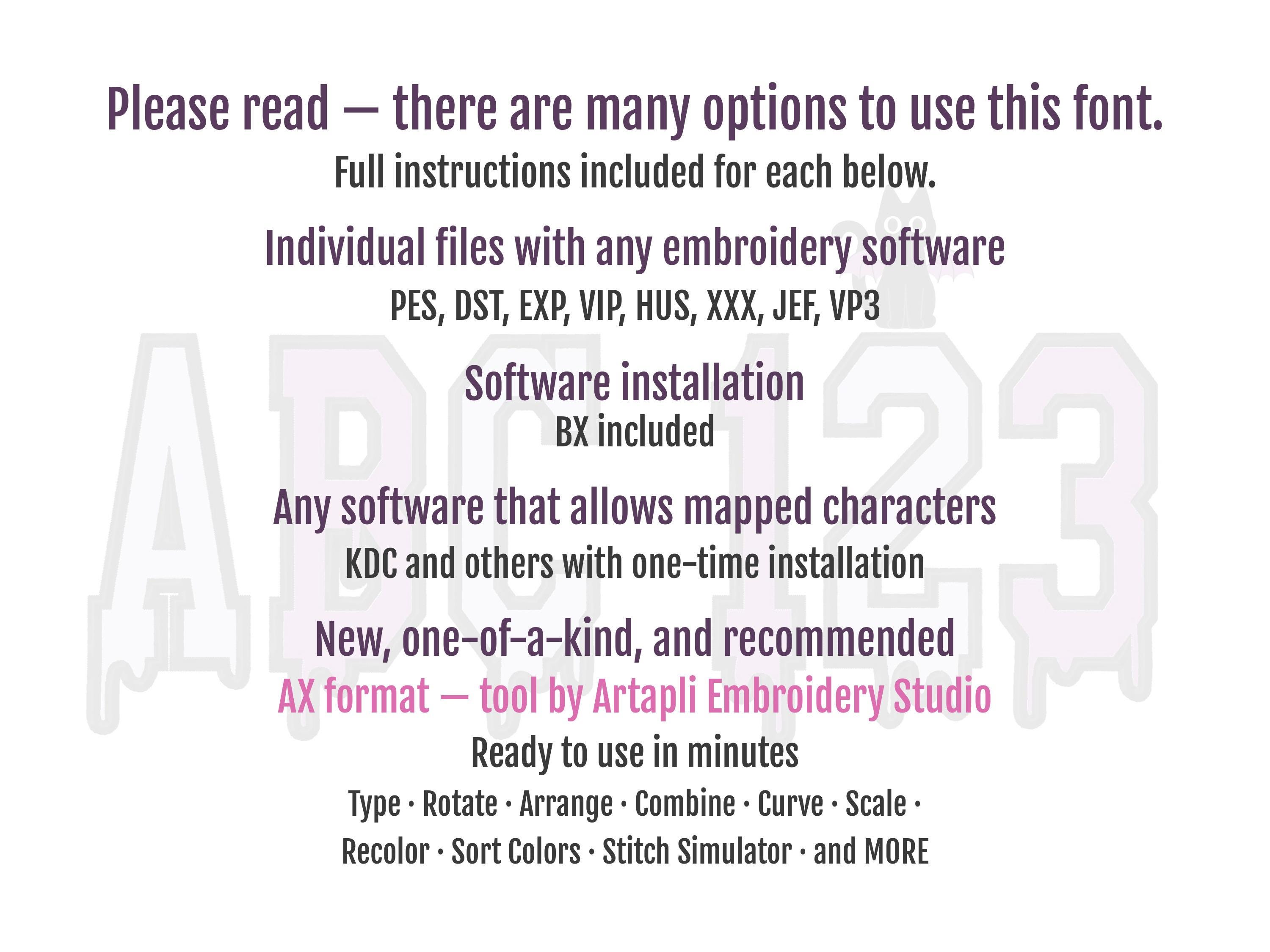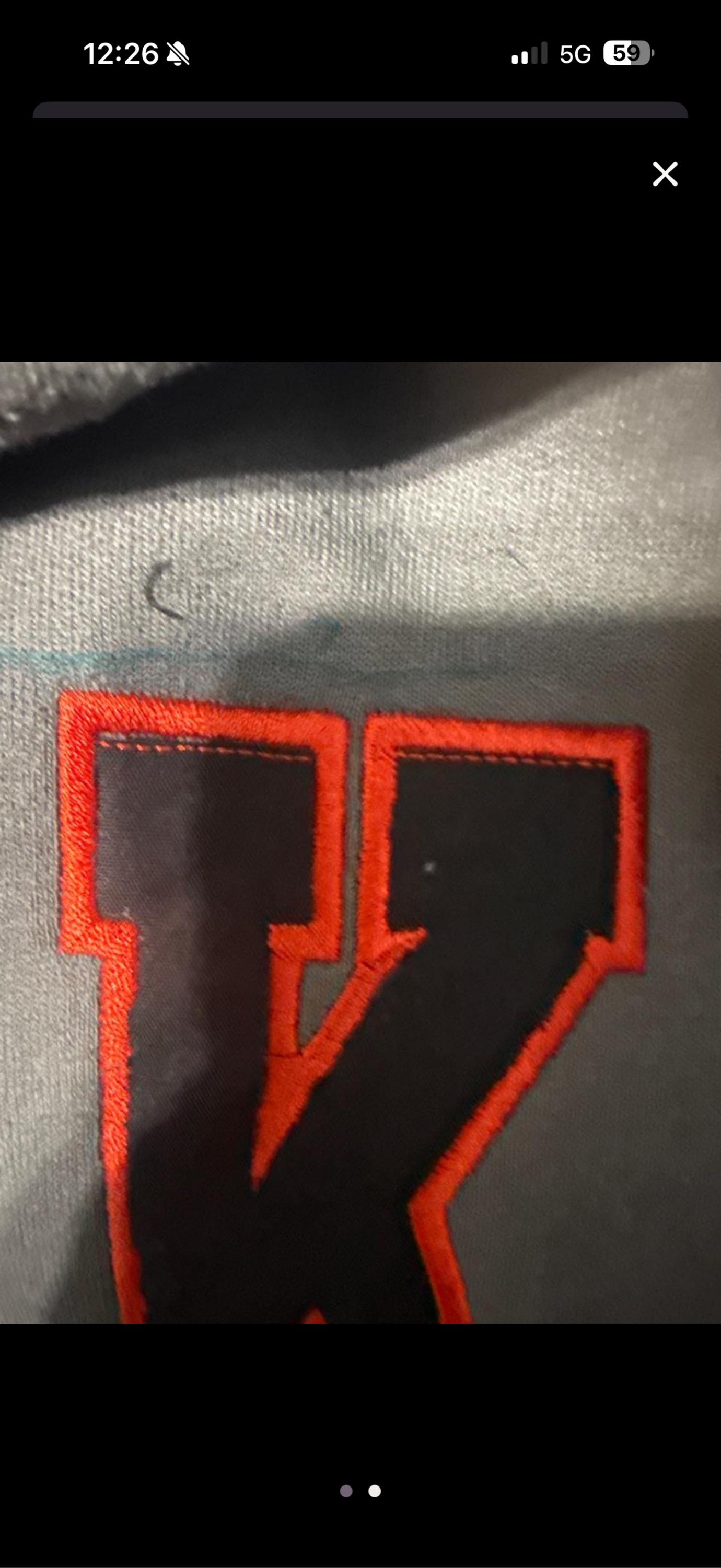
Halloween Spooky Melted FONT Applique Varsity Collegiate Melting Dripping Alphabet Monogram machine embroidery designs sizes 3 up to 6 inch
Applique design
Entire alphabet capital letters A-Z, and numbers 0-9.
The font did not stitch out as expected. I reached out to the seller and they basically said that it was something on my side since there was nothing wrong on theirs. I used the same stabilizer and technique i’ve been using for years. I provided a picture too. (The stitches look very messy and are not lining up as descripted) This is also the second time I bought from this seller & the second time it has not lined up.